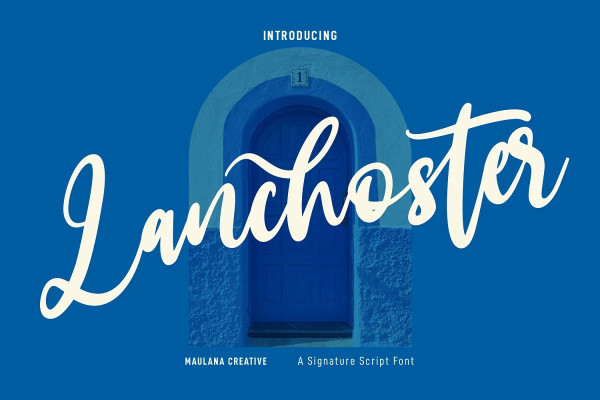
Lanchoster Font
Lanchoster Font is a fancy handwritten script font. With medium contrast stroke, fun character with a bit of ligatures and alternates. To give you an extra creative work. Lanchoster font support multilingual more than 100+ language. This font is good for logo design, Social media, Movie Titles, Books Titles, a short text even a long text letter and good for your secondary text font with sans or serif. Make a stunning work with Lanchosterfont.